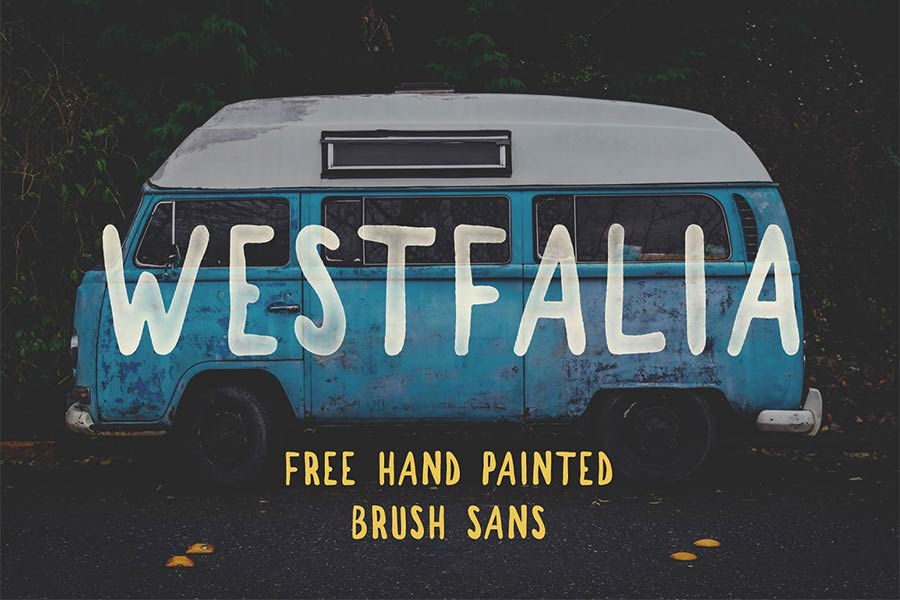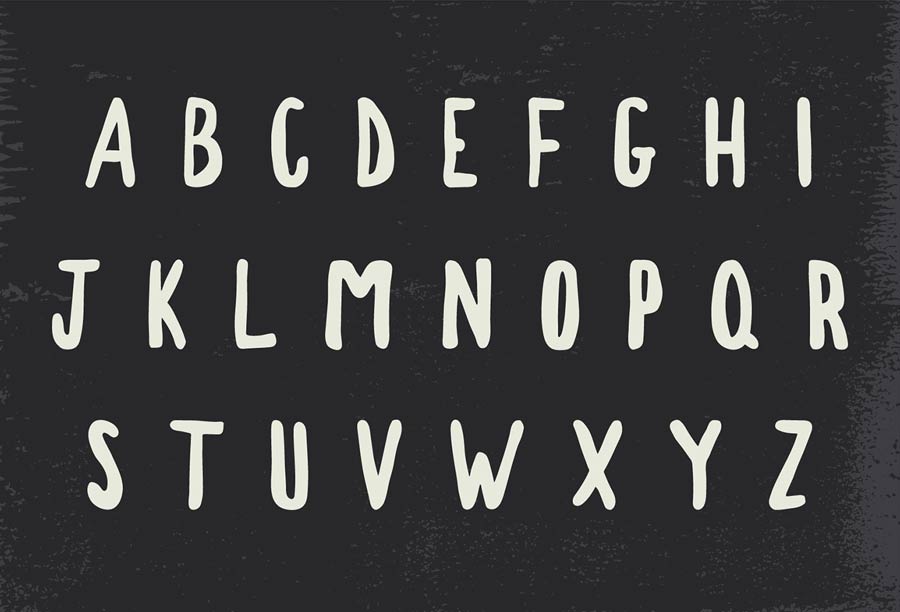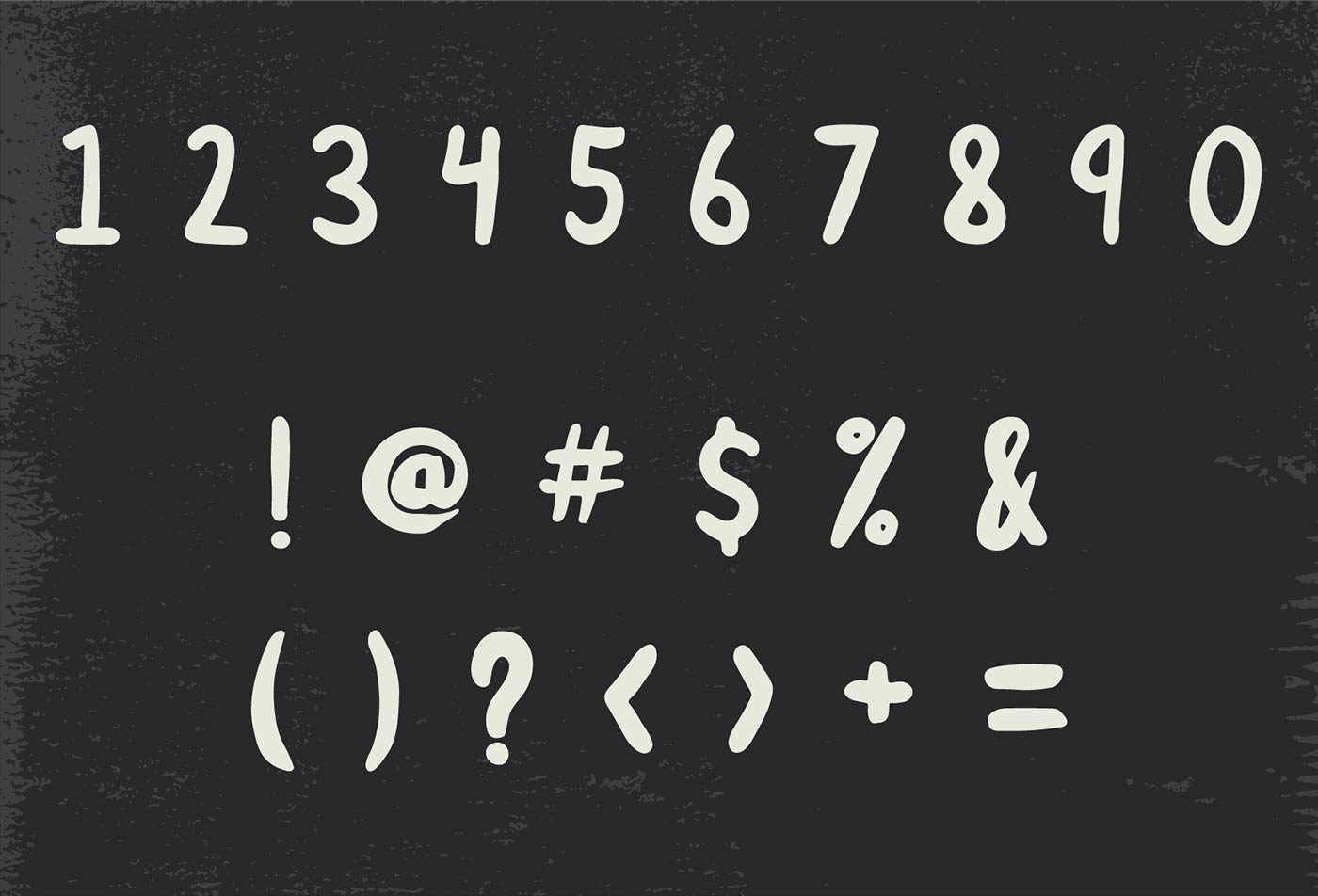
Westfalia is a hand-drawn brush font brought to you exclusively from the folks of Pixel Surplus. This font provides an authentic hand drawn feel with its messy edges and varied line thickness. You can use it on any projects including commercial usage, and it’s suitable to works related to outdoor, travel and explorations.